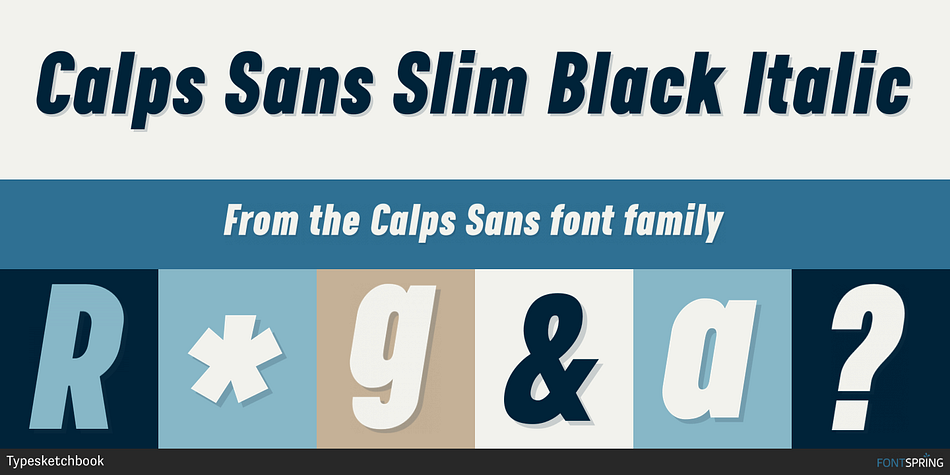
Calps Sans Slim Black Italic
Designed by Chatnarong Jingsuphatada, Calps Sans is a sans serif font family. This typeface has thirty-six styles and was published by Typesketchbook.
Calps Sans is a variant of the original Calps typeface. Import to be more corporate, Calps Sans family use flat corners instead of rounded corners (Calps). “Calps Sans” is a prominent, eye-catching and unique typeface. It comes with 9 weights and Slim version in order to suit for a multifunctional usage, especially for cooperative work, such as website, magazine, editorial, publishing , as well as packaging.